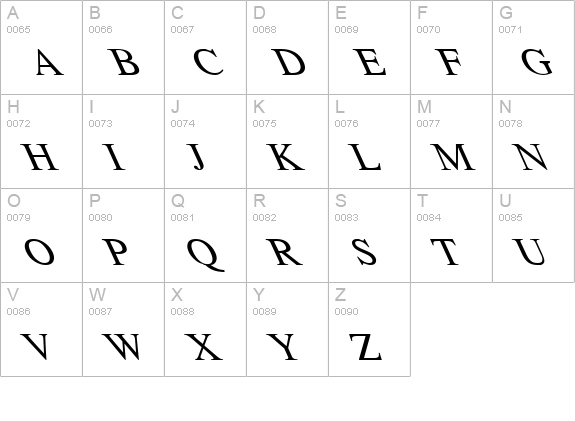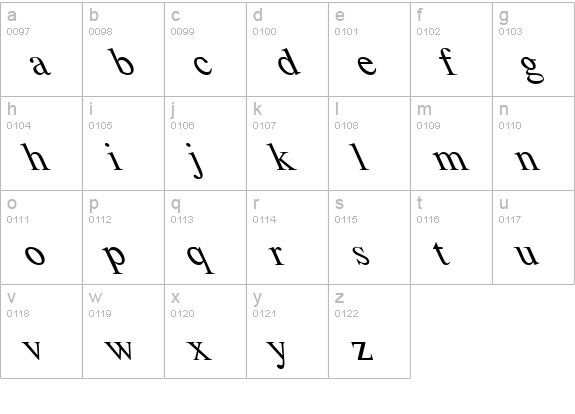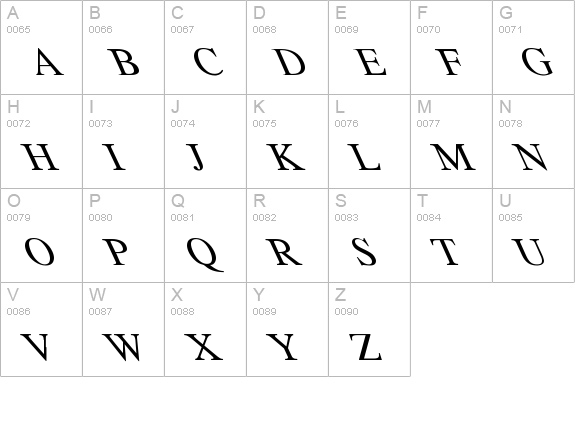
Tempo Font Extreme Lefti is a visually stunning and creatively unique typeface that will surely captivate the attention of any designer or typographer. With its extreme left slant and bold letterforms, this font exudes a sense of dynamism and energy that adds a touch of excitement to any design project. This font is perfect for those looking to make a bold statement with their typography. Whether you're designing a poster, logo, or website, Tempo Font Extreme Lefti is sure to make a lasting impression. Its edgy and unconventional style sets it apart from the crowd, making it an excellent choice for those seeking to break free from the norm. What sets Tempo Font Extreme Lefti apart is not only its striking visual appearance, but also the fact that it is available for free. Yes, you read that right – this font can be freely downloaded at FontsMarket.com. This means that you can add this exceptional typeface to your design arsenal without spending a dime. By offering Tempo Font Extreme Lefti for free, FontsMarket.com aims to support and empower designers and creatives from all walks of life. We believe that everyone should have access to high-quality resources that can help them bring their creative visions to life. That's why we are proud to provide this font as a free download, allowing designers to experiment and push the boundaries of their creativity without any limitations. So, what are you waiting for? Don't miss out on the opportunity to enhance your designs with the striking and visually captivating Tempo Font Extreme Lefti. Visit FontsMarket.com today and download this font for free to take your designs to the next level. Unleash your creativity and make a statement with Tempo Font Extreme Lefti – the font that breaks free from the conventional typography norms.